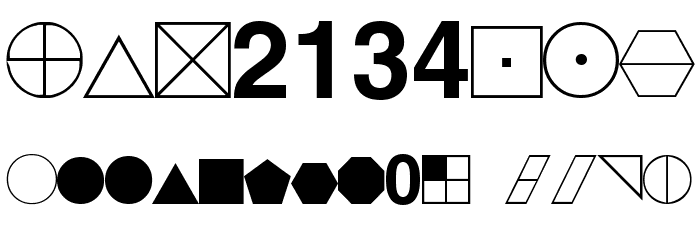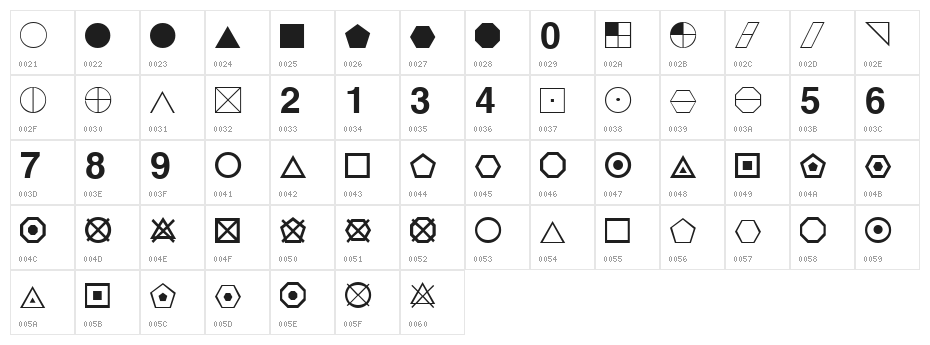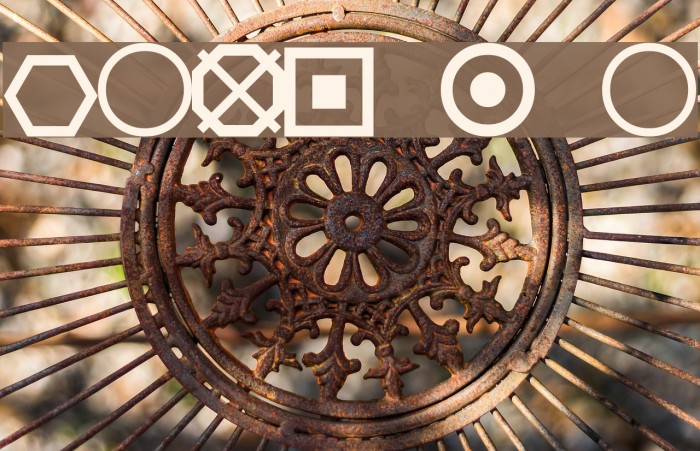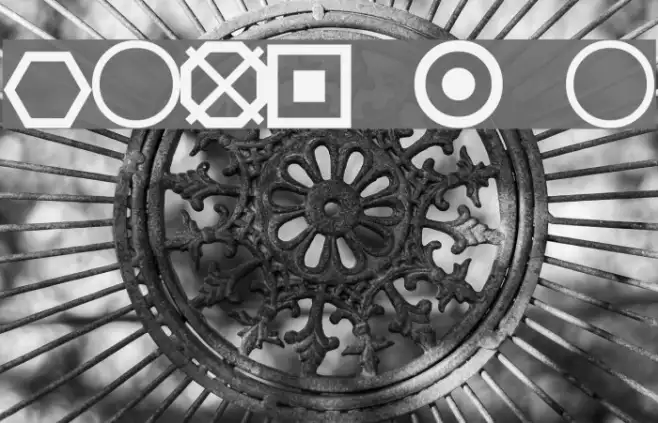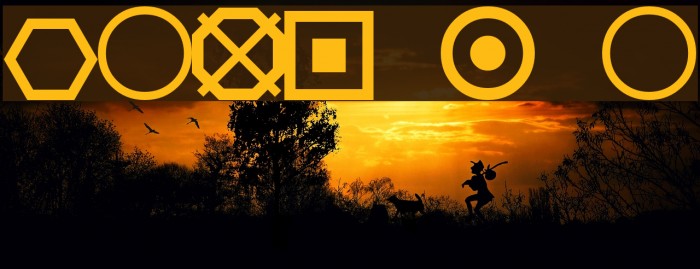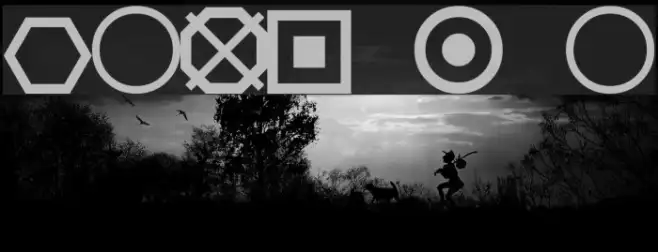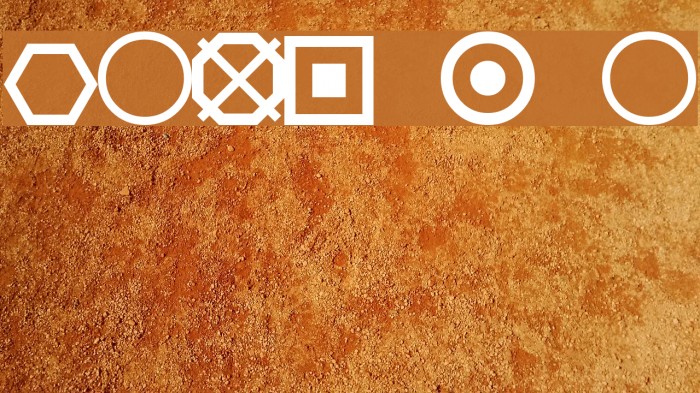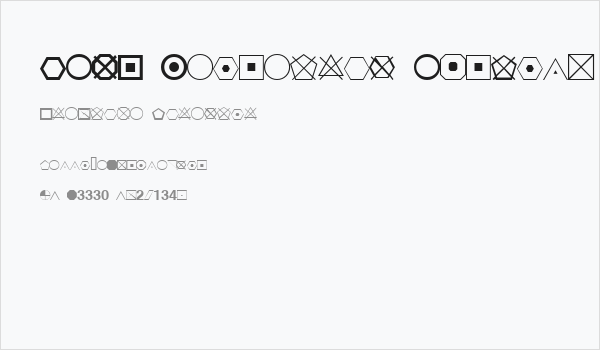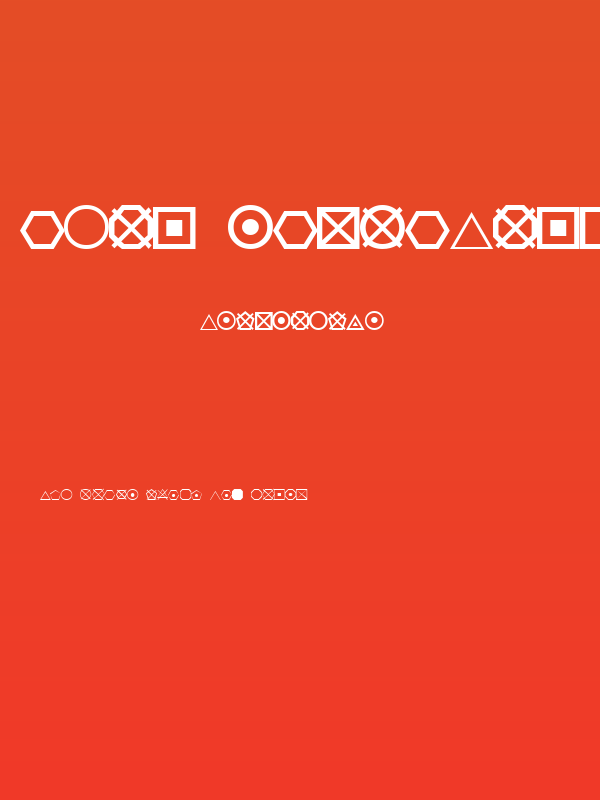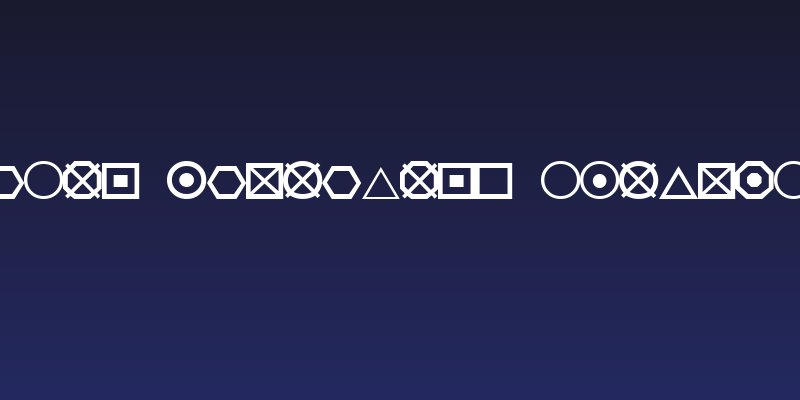
ESRI Geometric Symbols Font
ESRI Geometric Symbols Description
A geometric symbol font featuring a variety of outlined and filled shapes such as circles, triangles, squares, pentagons, hexagons, octagons, and combinations with crosses and dots. The font includes both regular and bold weights for some numerals and shapes, with consistent line thickness and clear, simple forms.
| Overall Style | Modern, Technical, Minimalist |
| Use Case | Symbols, Icons, Diagrams, Legends |
| Proposed Projects | Maps, infographics, technical diagrams, educational materials, legend keys, and iconography. |